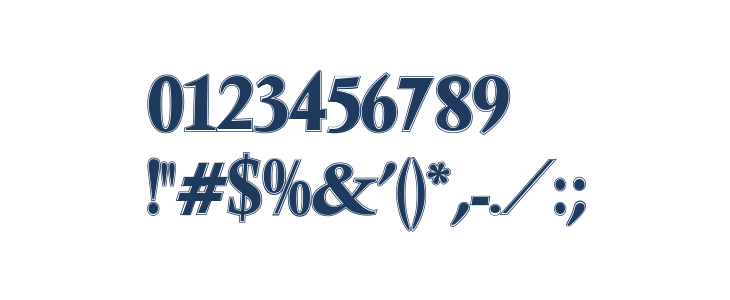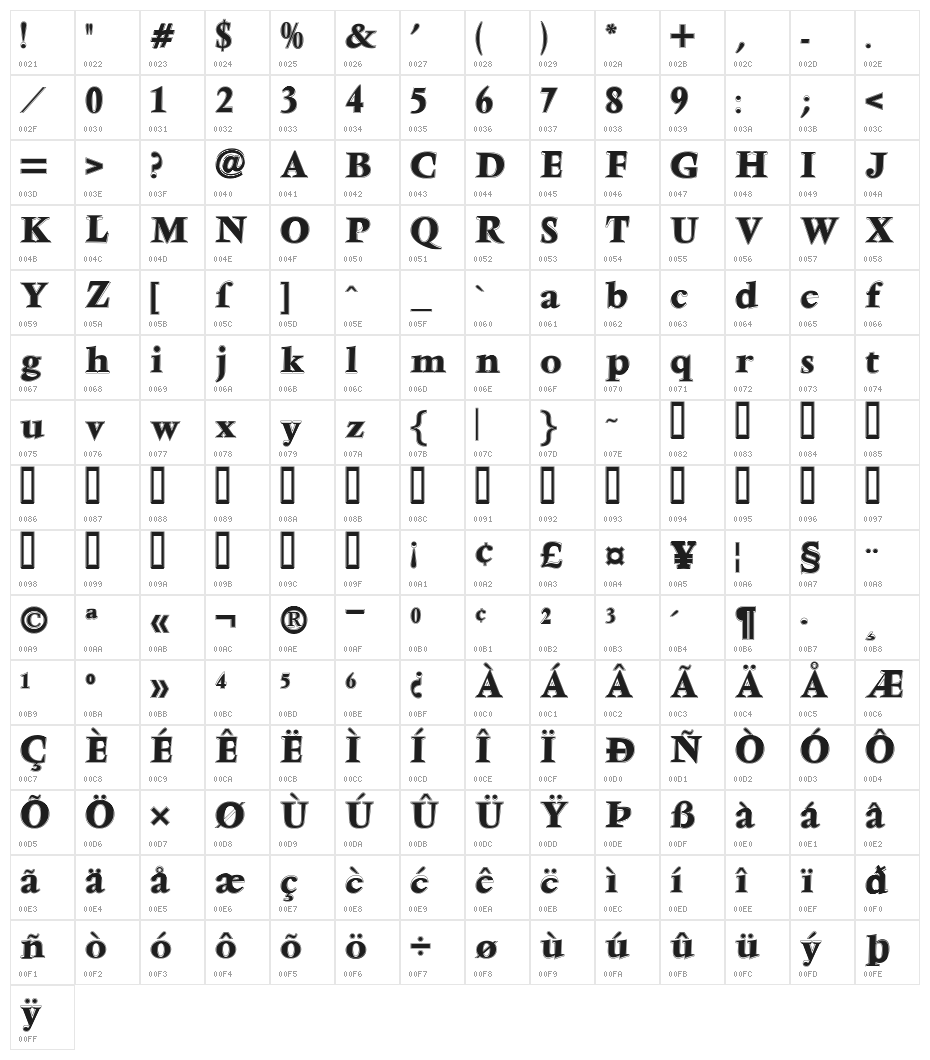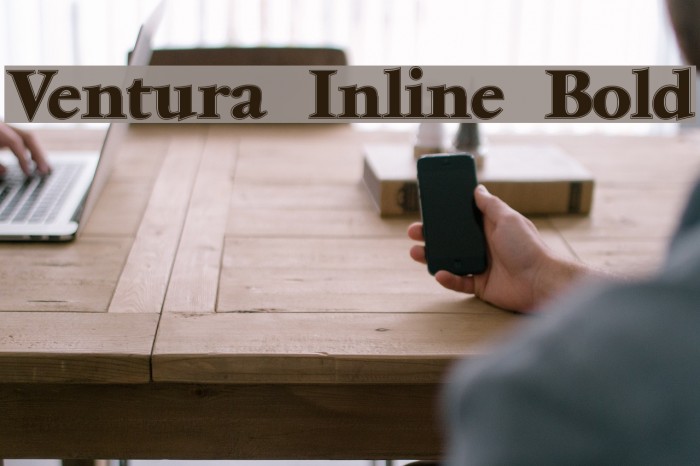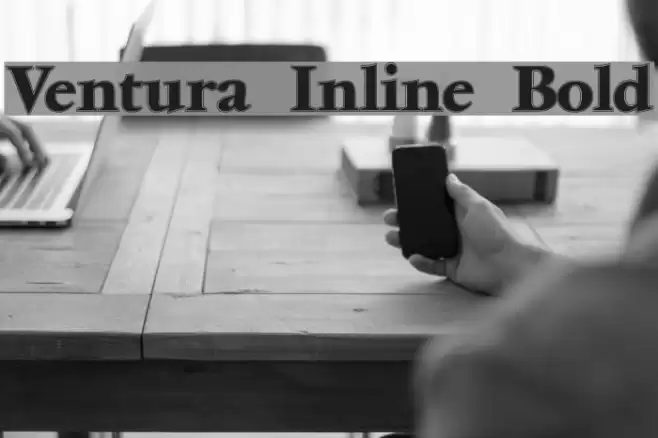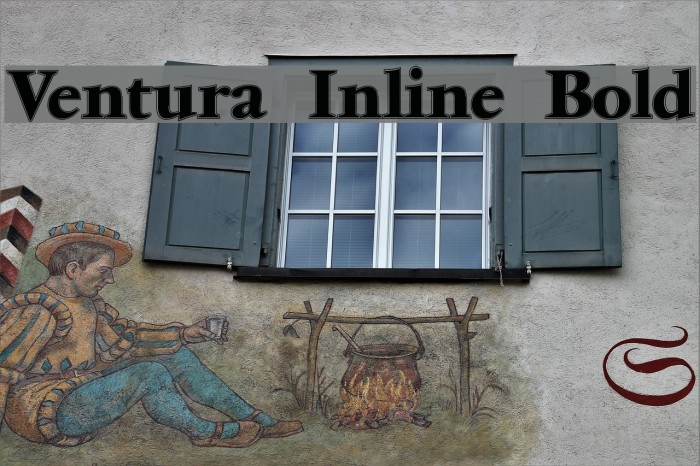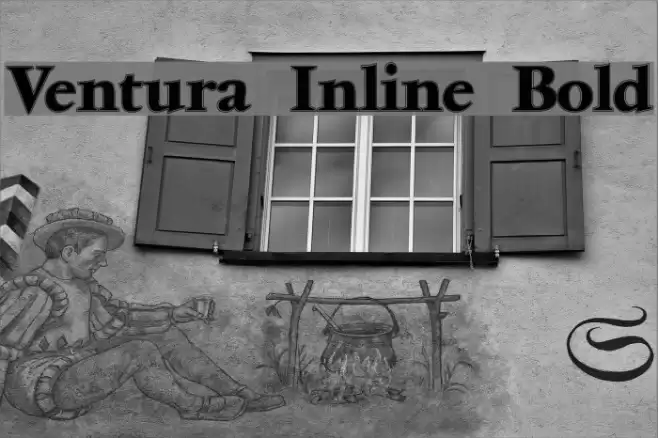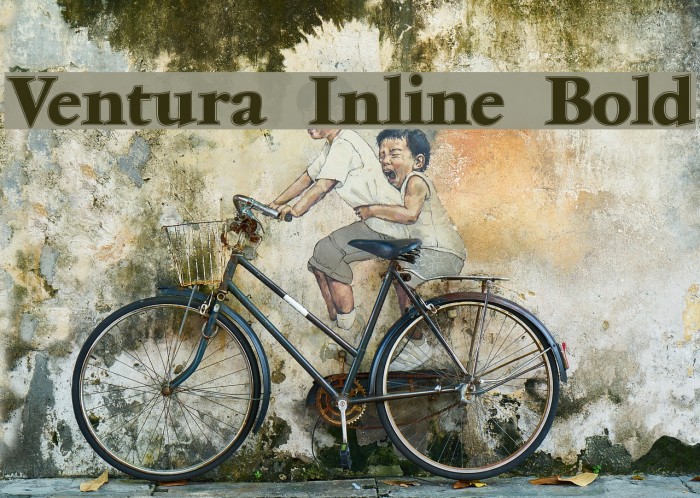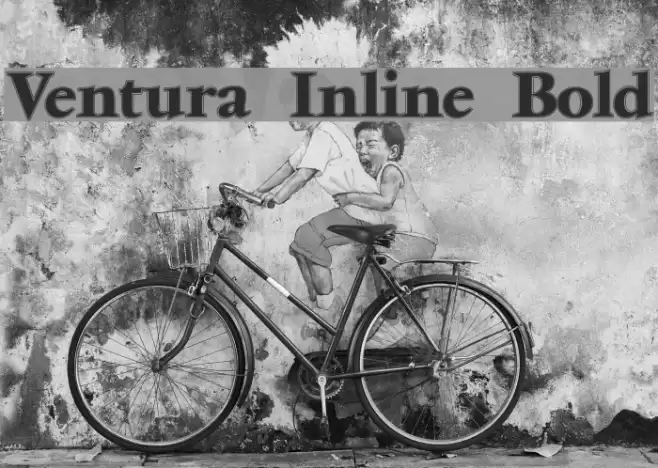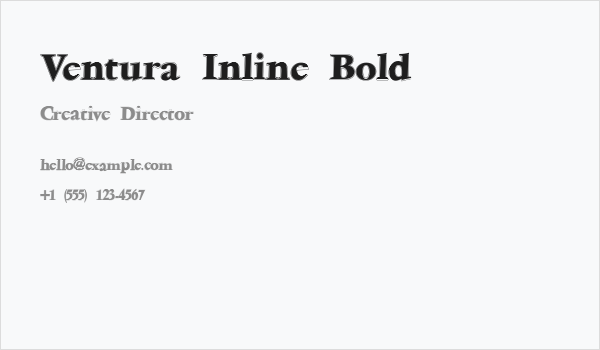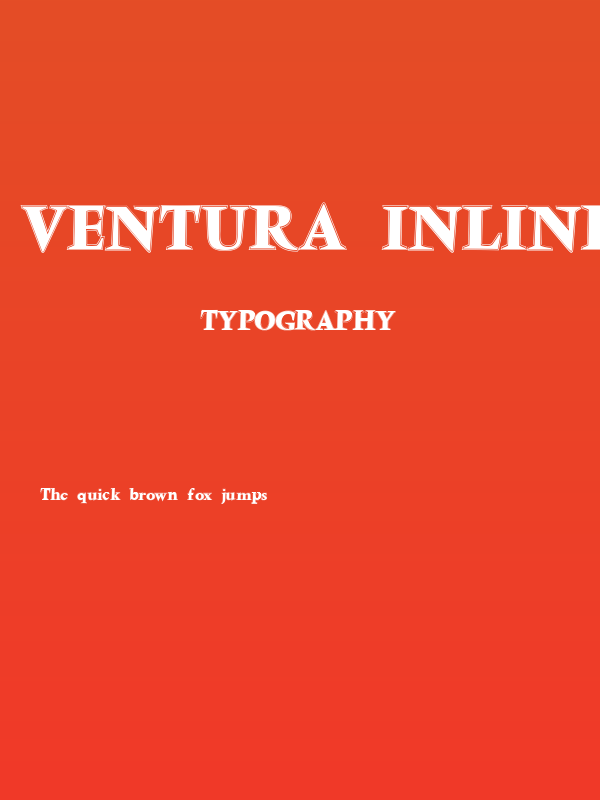
Ventura Inline Bold Font
Ventura Inline Bold Description
This font features a bold and striking design with an inline style that adds depth and dimension to each character. The uppercase and lowercase letters are well-balanced, with a strong presence that commands attention. The numerals are equally bold, ensuring consistency across all elements. Special characters are designed with the same inline detail, making them stand out. The overall look is both classic and modern, suitable for a variety of design needs.
| Proposed Projects | Ideal for headlines, posters, branding, and any project requiring a strong visual impact. |